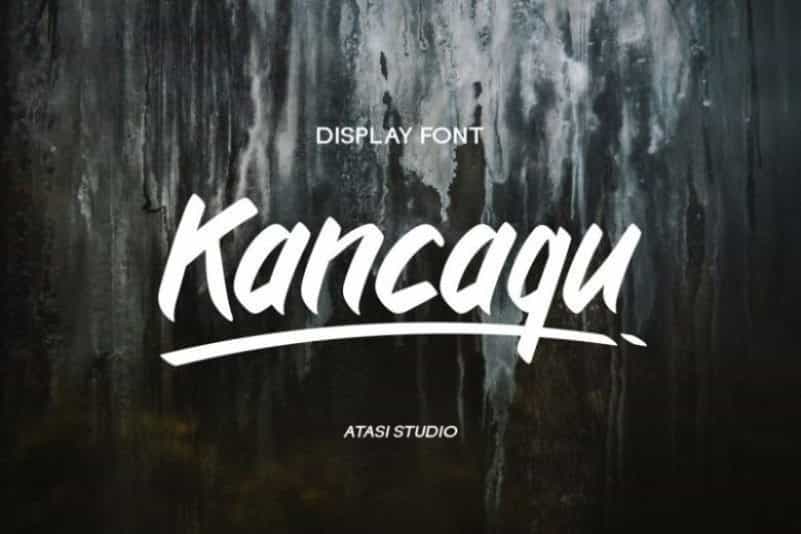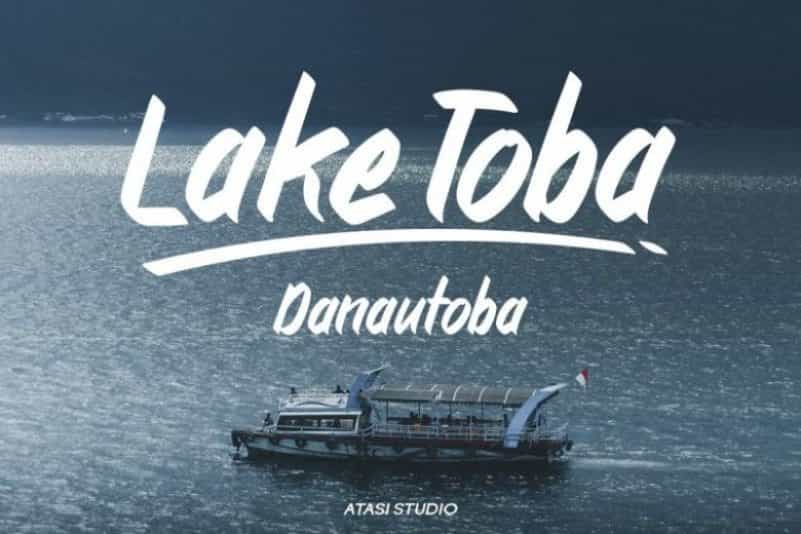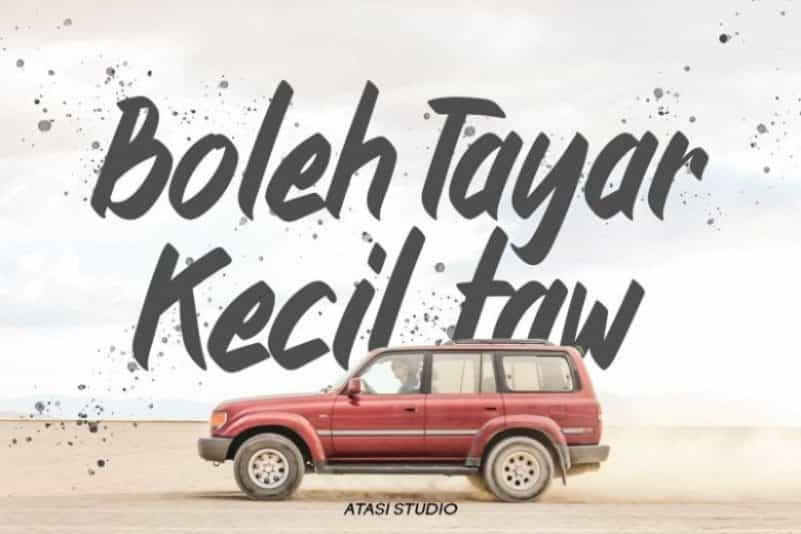
Discover Kancaqu Font, part of the Brush Display collection—a versatile and unique font perfect for adding a personal touch to your projects. Download it for free and enjoy crafting designs with style, from invitations to social media posts. This font is available exclusively for personal use, giving you the freedom to create without limits. Unlock your creativity with Kancaqu Font today!
Kancaqu is a handwritten script font that is quite bold. This font is a combination of several types of letters. I wanted to come up with something different compared to other people. Great for large print, branding, names, headings, blogs, logos, invitations and much more!